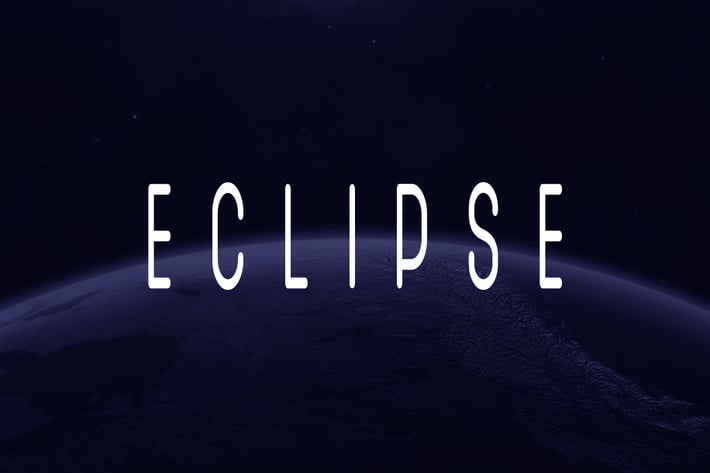
SB ECLIPSE - Unique Display / Logo Typeface
ECLIPSE is a stylish typeface for fashion, branding, logotypes & display usage. This unique typeface is best for creating outstanding logos, promotional content and marketing graphics that can really grab attention from your visitors. Please see the examples shown above to get an idea about the capability of this typeface.